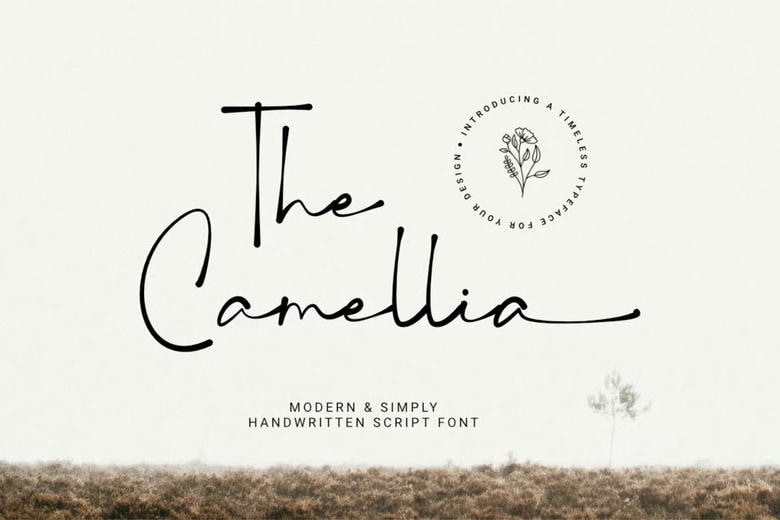
The Camellia Font
The Camellia Font is an incredibly modern and simple handwritten font that easily conveys the essence of modern elegance. Characterized by its delicate, thin strokes and sweeping horizontal extensions, the The Camellia typeface is a whispered note of sophistication on a clean canvas.
It is a great balance of organic spontaneity and minimalist design, and is a standout choice for creators for whom a design getting both very personal and professional is the most important point. The Camellia font will provide an extra touch of classic elegance whether it comes to high-end wedding stationery, minimalist living brands or relaxing social media posts.
It looks beautiful with light-weight serif fonts and looks fantastic on its own over high-key photography that seems airy. By adding the The Camellia typeface to your projects, you are adding a sense of peace and artisanal quality to your projects that will resonate with your target audience who are looking for authentic beauty in a fast-paced world.
The Camellia Handwritten Script Font